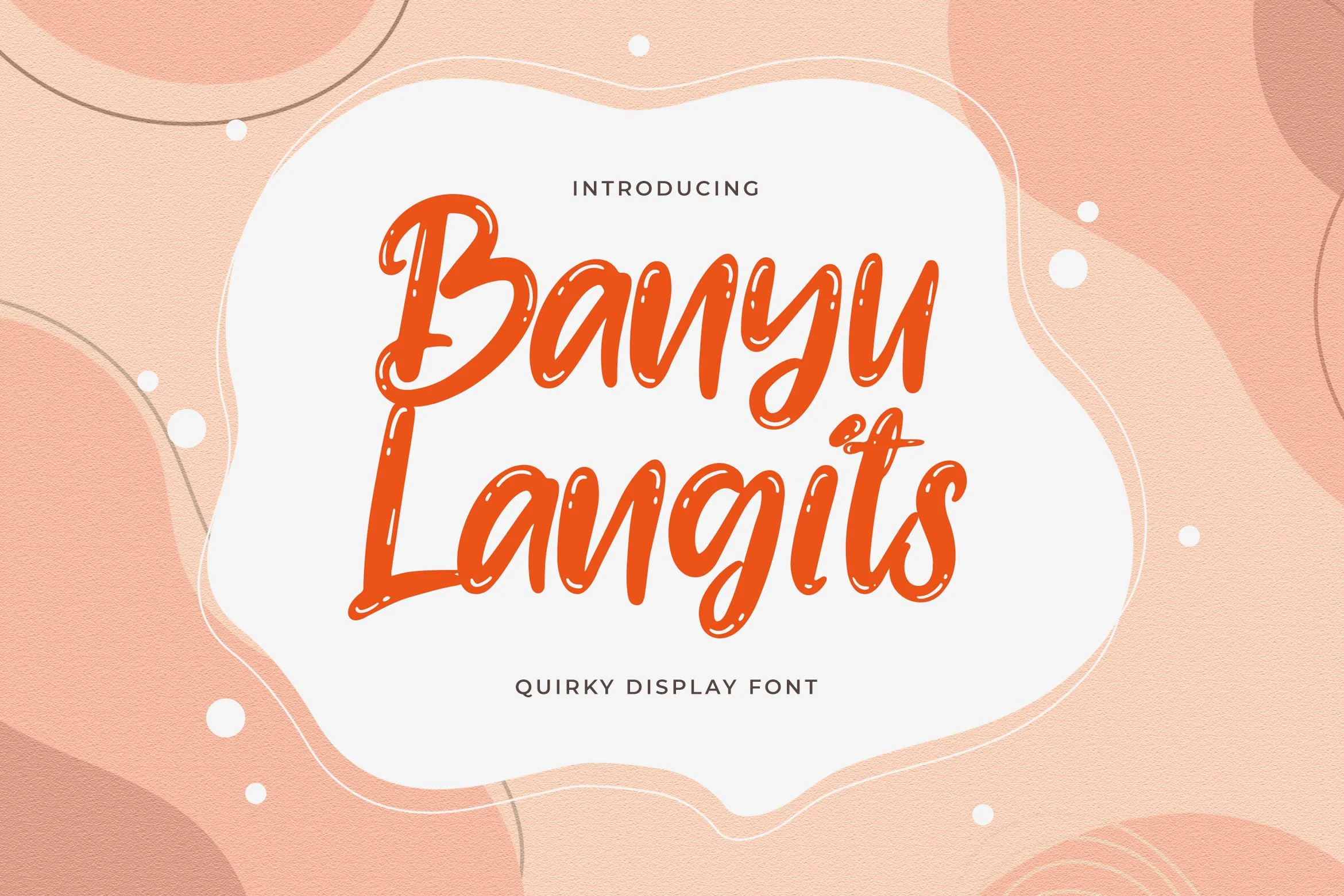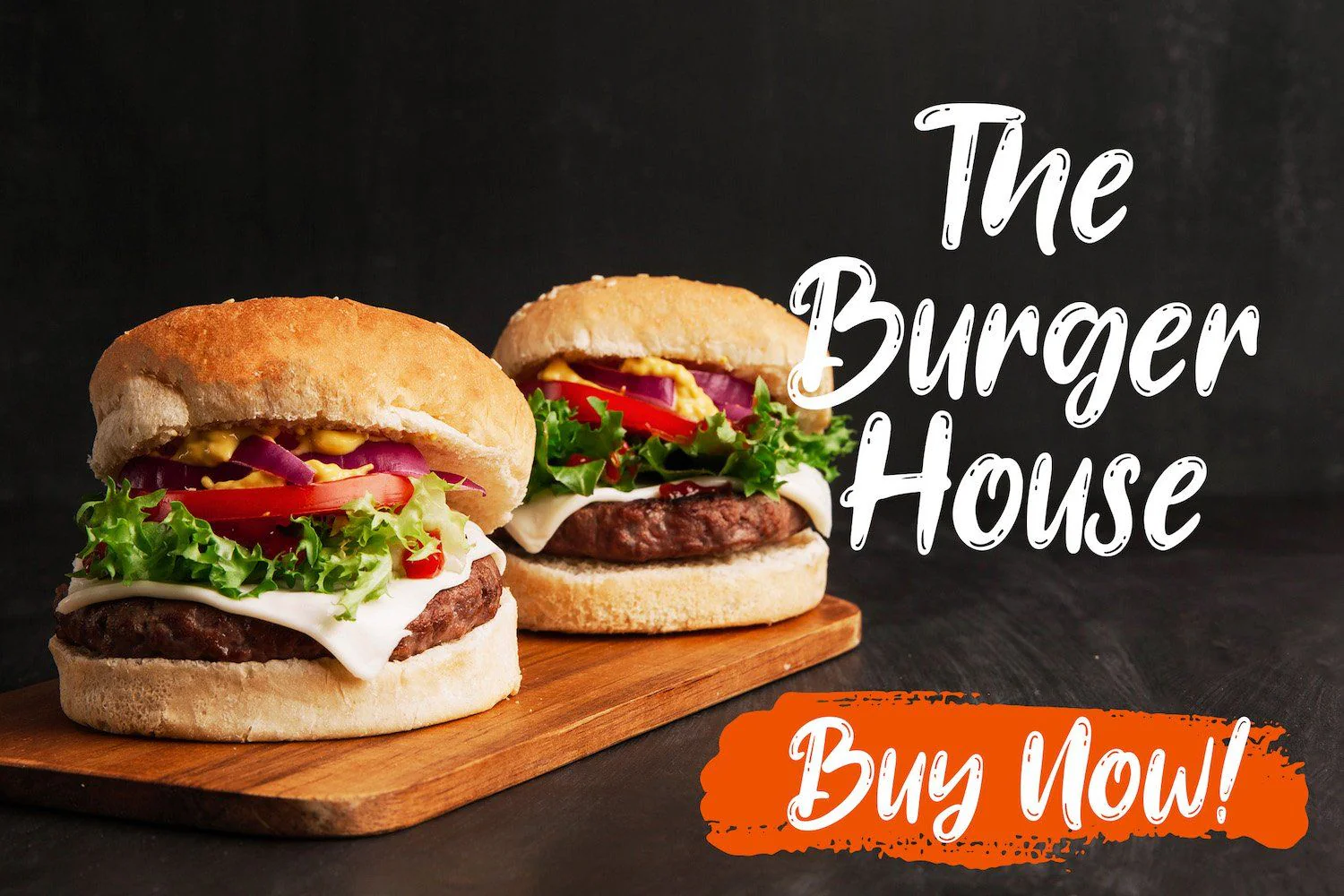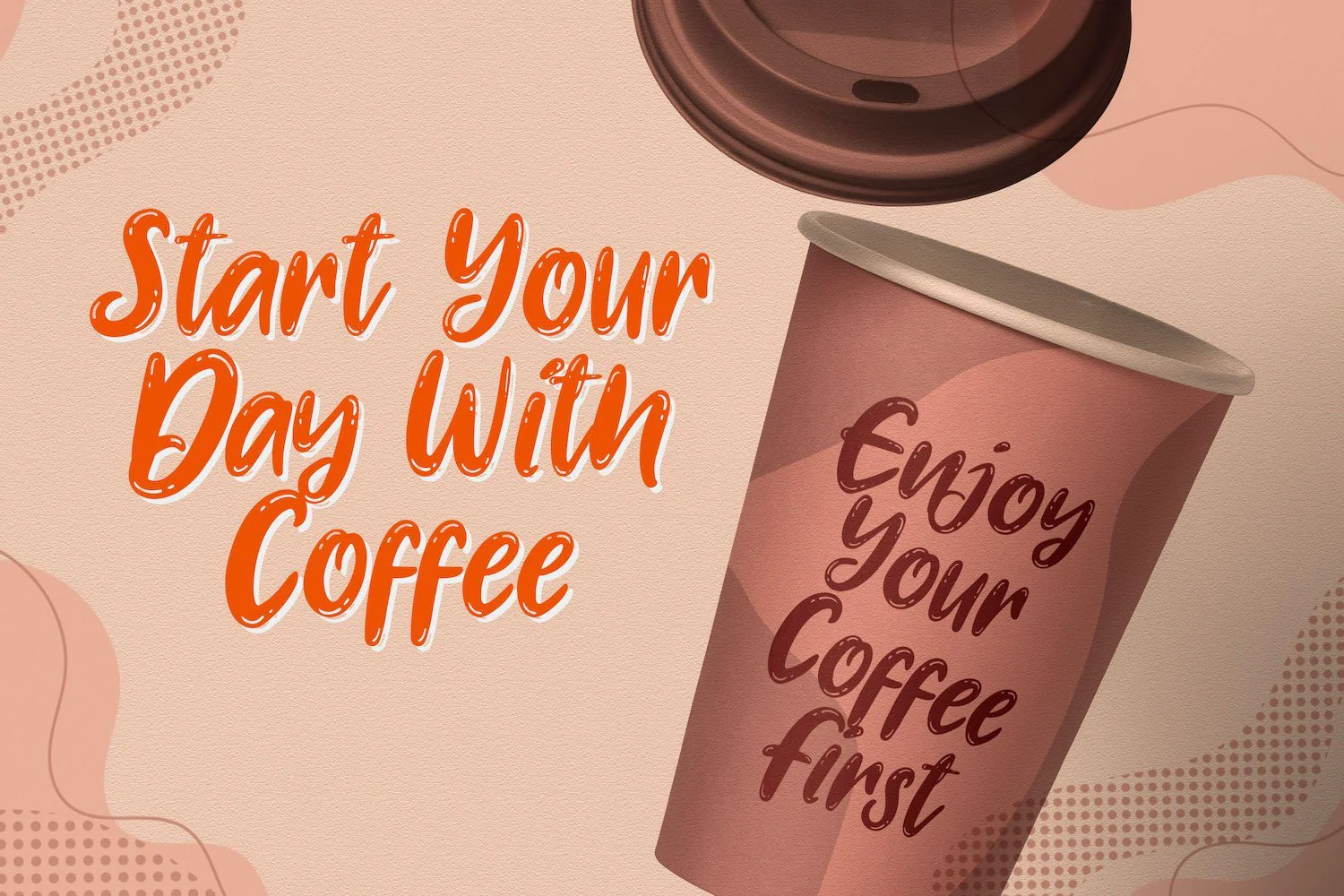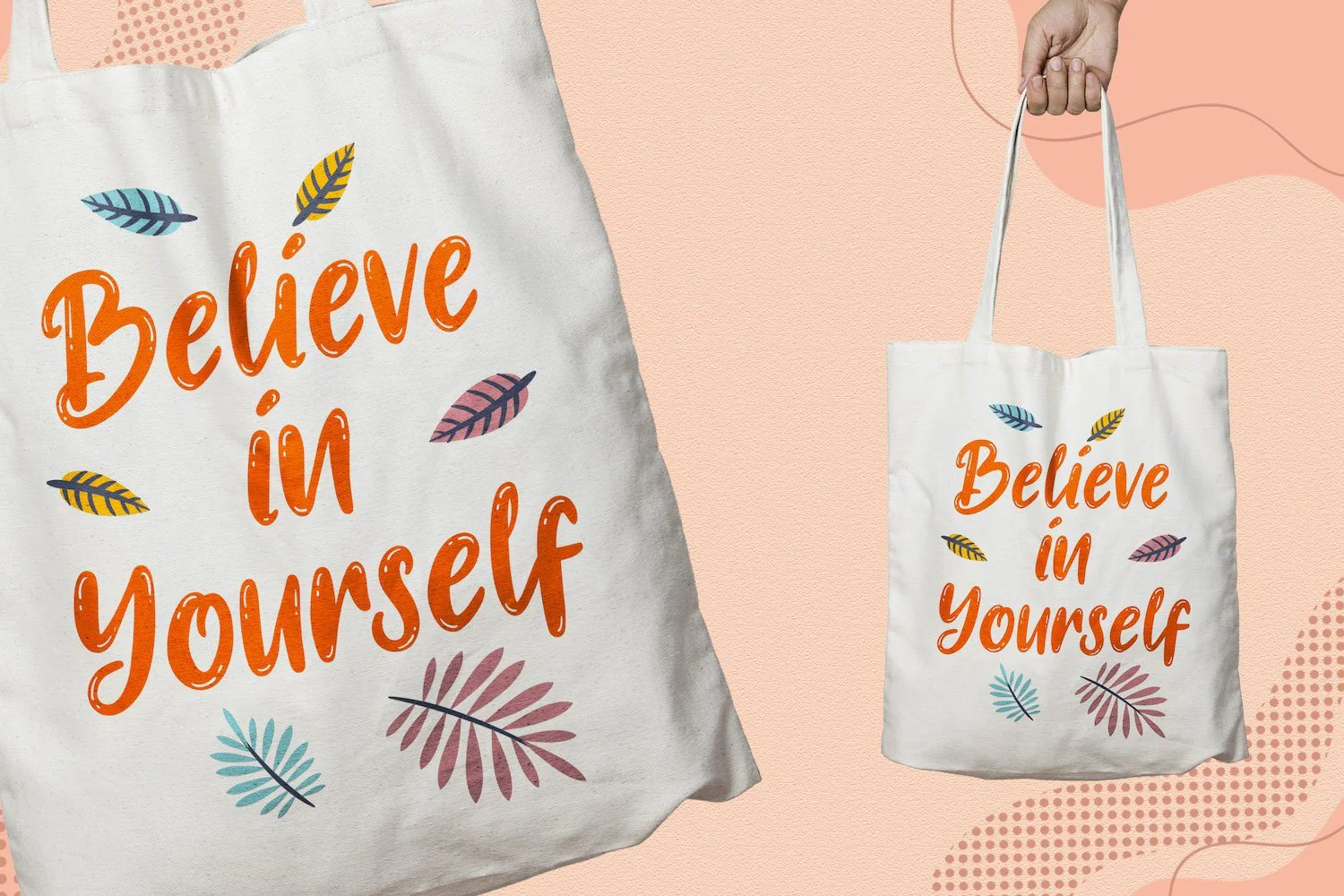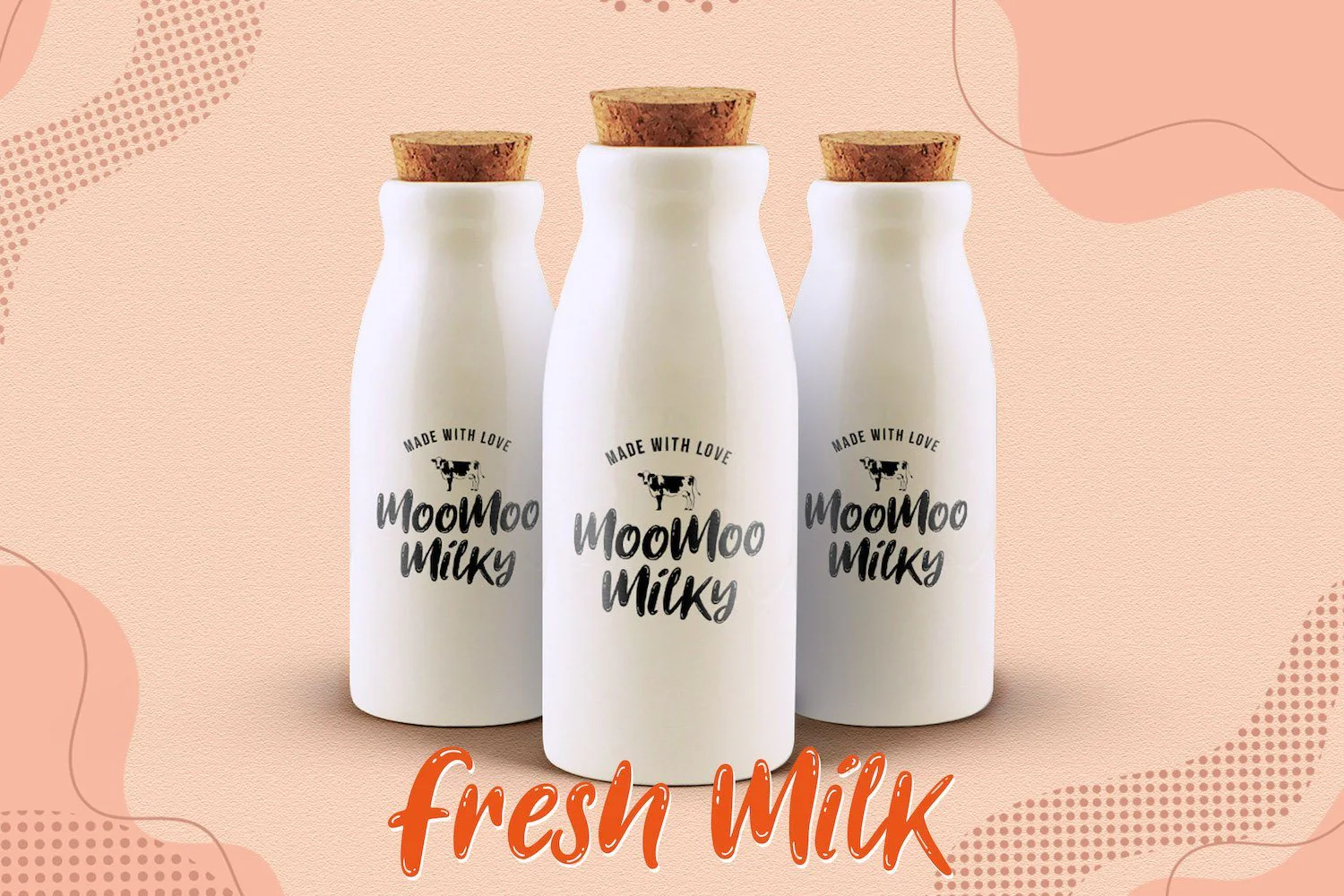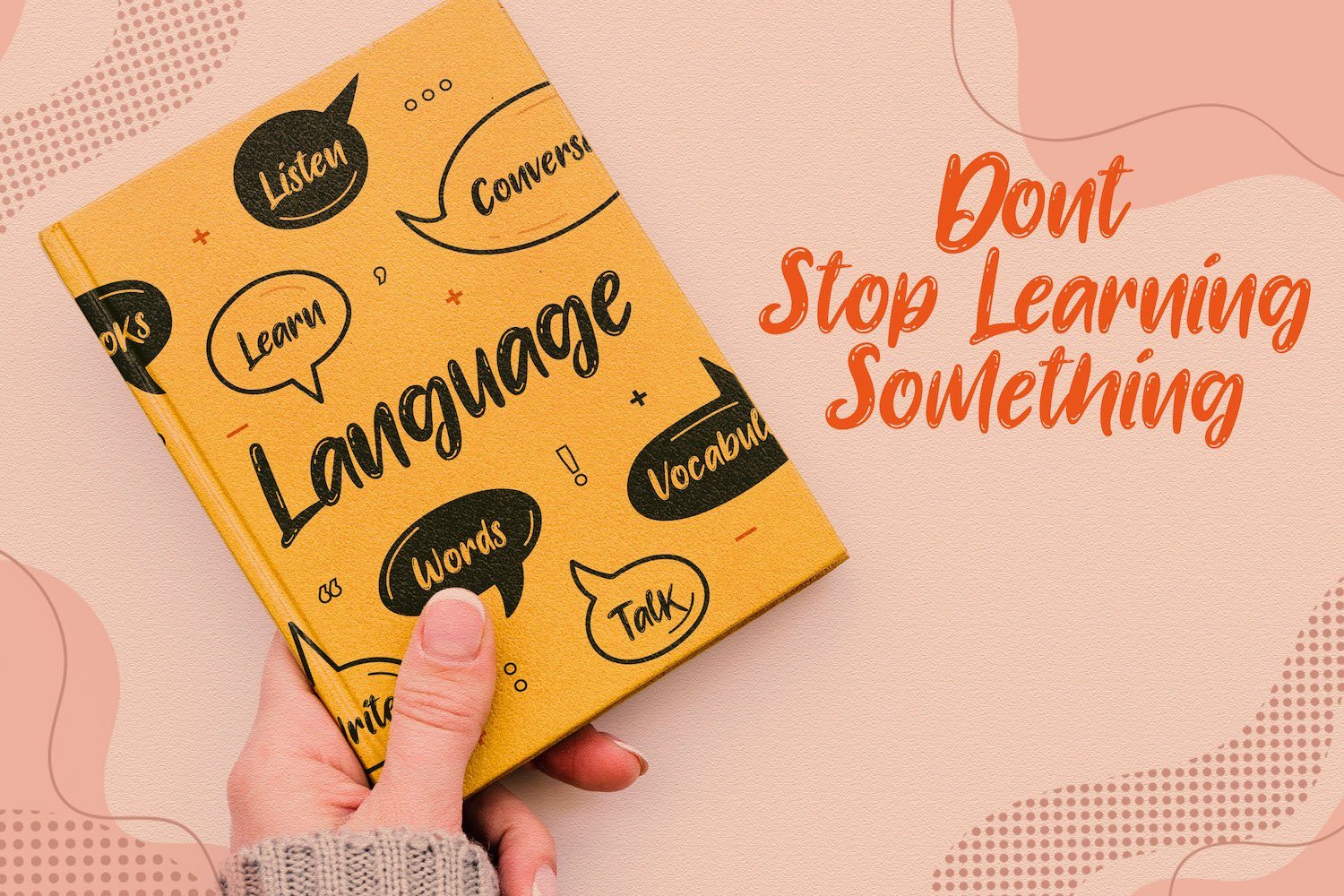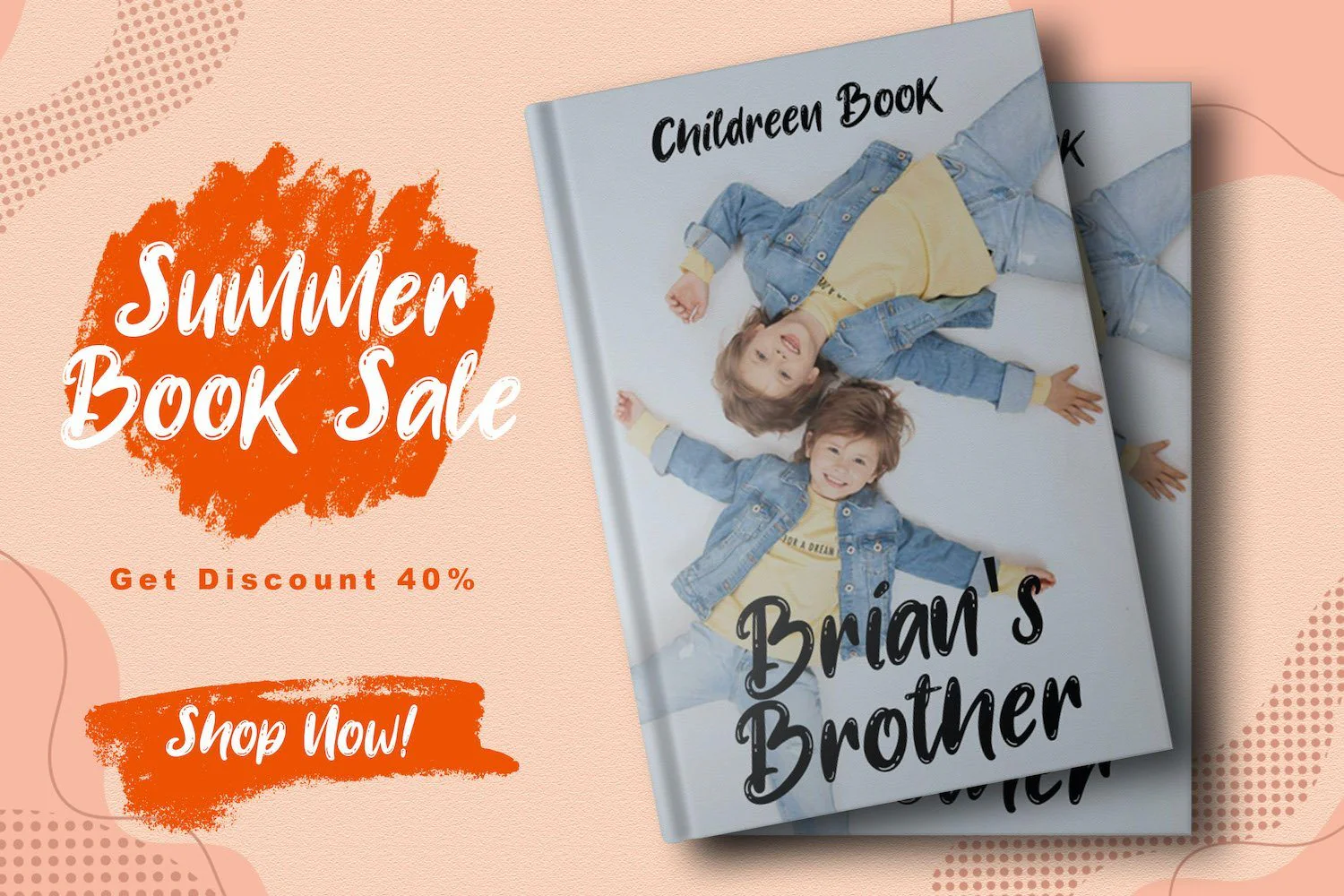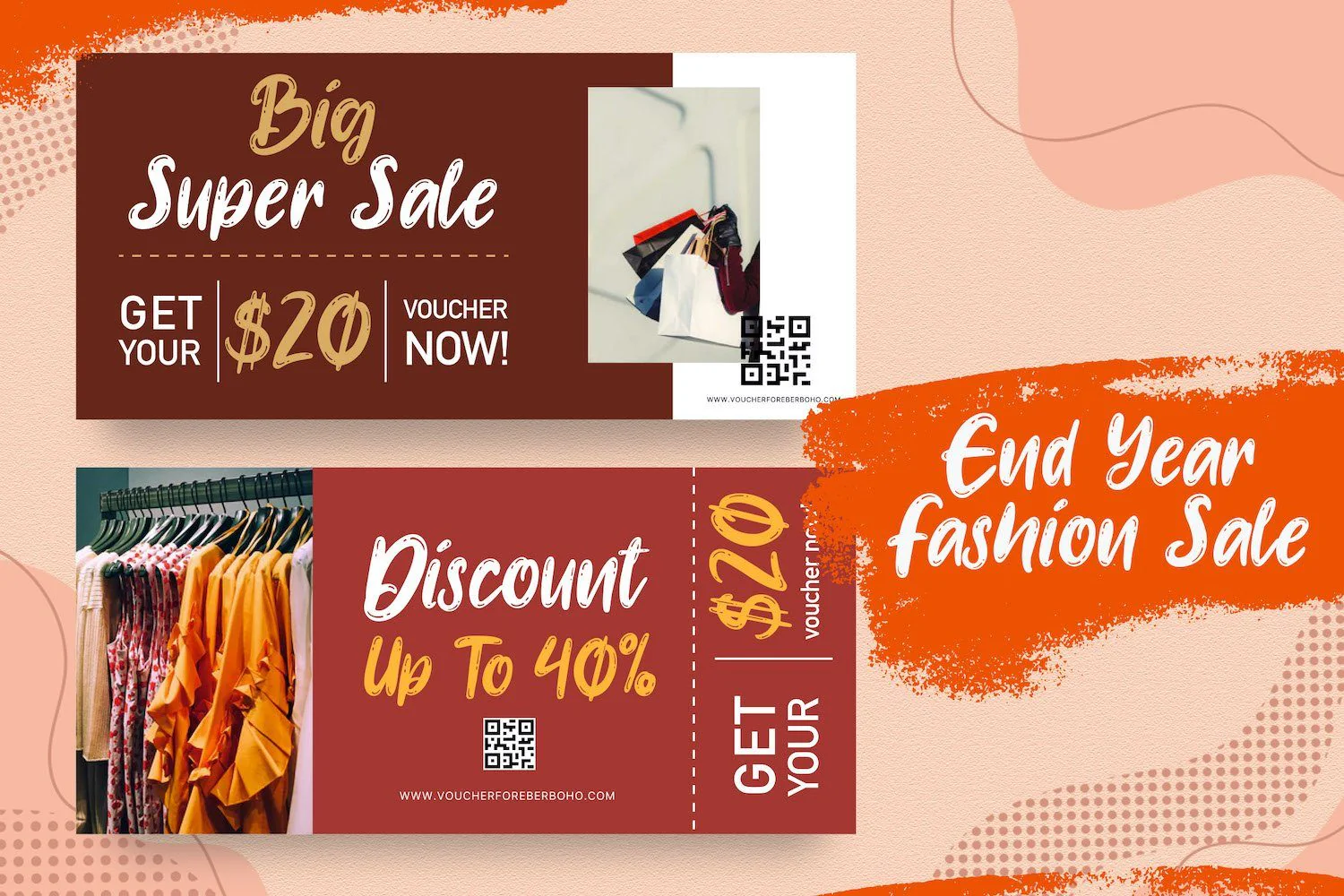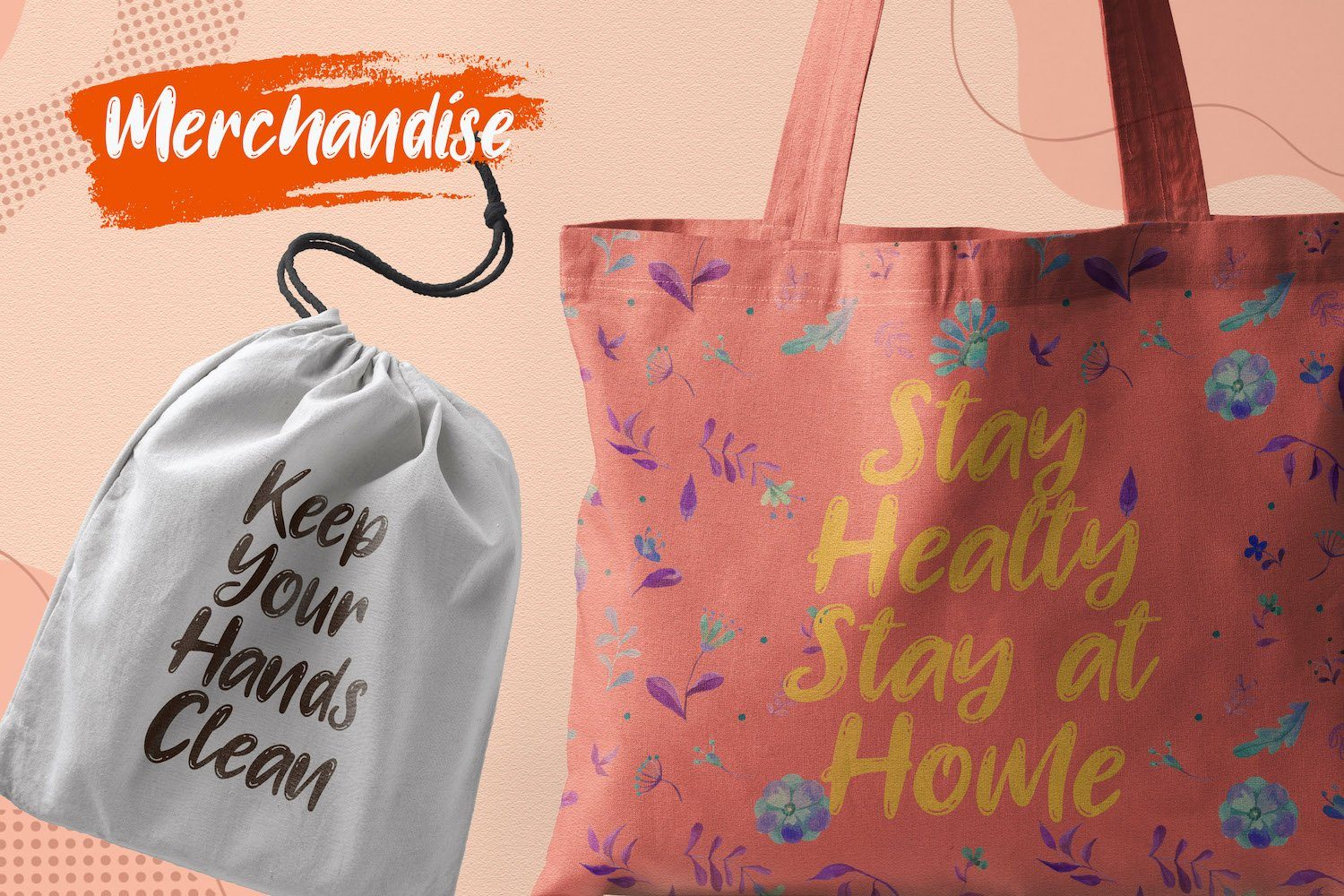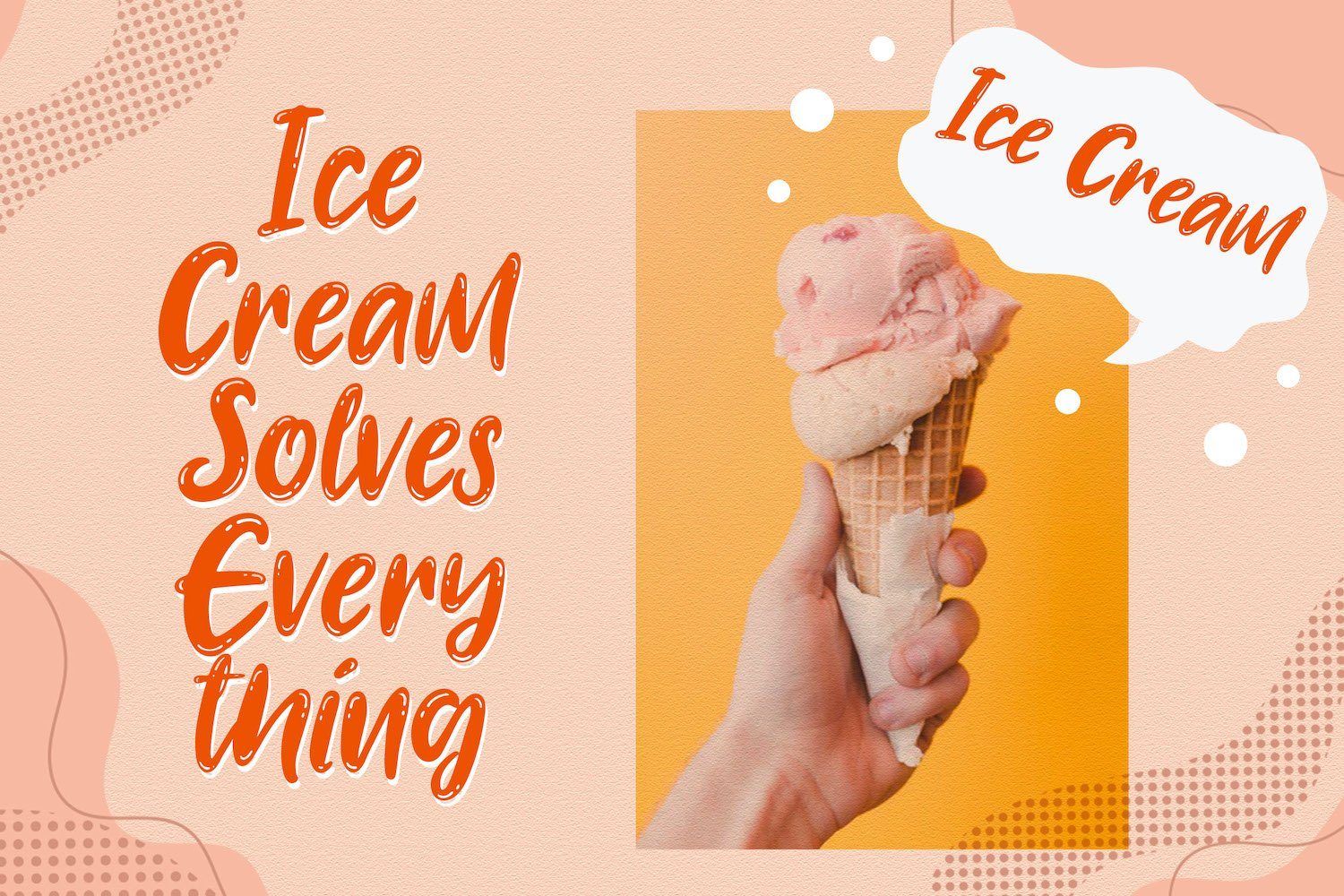
Banyu Langits - Quirky Display Font
Introducing Banyu Langits - Quirky Display Font
Banyu Langits is a cute and quirky display font. Its friendly feel makes this font incredibly versatile, fitting a wide range of contexts. Add it to your creative ideas and notice how it makes them stand out!
Introducing Banyu Langits - Quirky Display Font
Banyu Langits is a cute and quirky display font. Its friendly feel makes this font incredibly versatile, fitting a wide range of contexts. Add it to your creative ideas and notice how it makes them stand out!